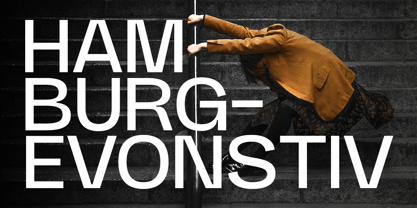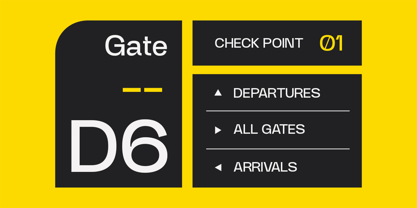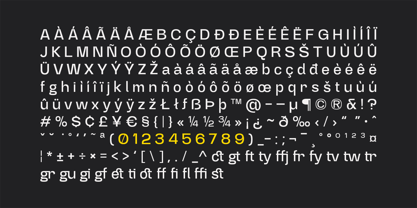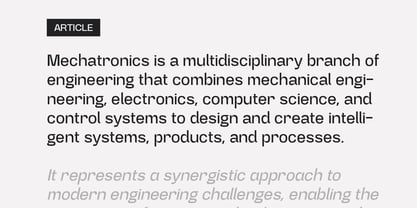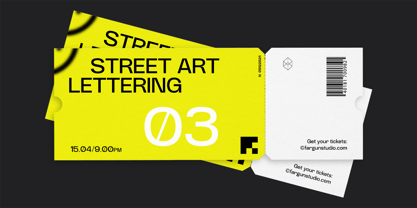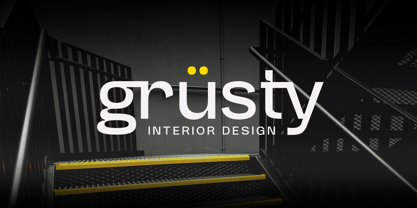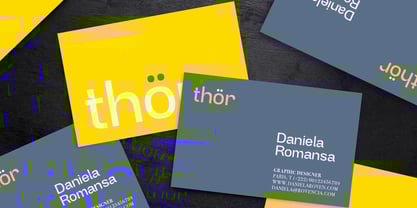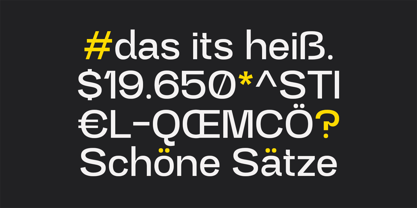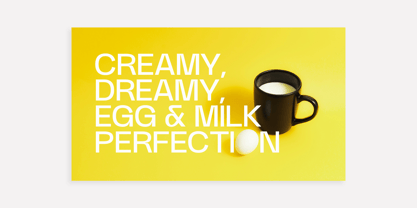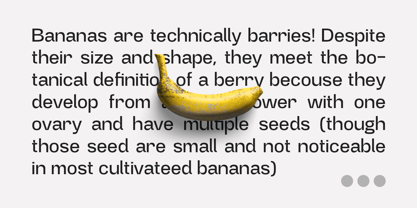
Gembira
by Fargun Studio
The Gembira Font Family was designed by Fajar Gunawan and published by Fargun Studio. Gembira contains 2 styles and family package options.
Gembira seamlessly blends the timeless appeal of mid-century modern design with the striking character of bold inktraps. Drawing inspiration from the precise geometry and clean forms movement, along with the iconic lowercase shapes of Futura, this typeface represents a perfect balance of vintage charm and modern innovation.
Enhancing its adaptability, Gembira includes alternate glyphs available through OpenType stylistic sets, offering designers greater flexibility to craft expressive and dynamic visuals for any creative endeavor.